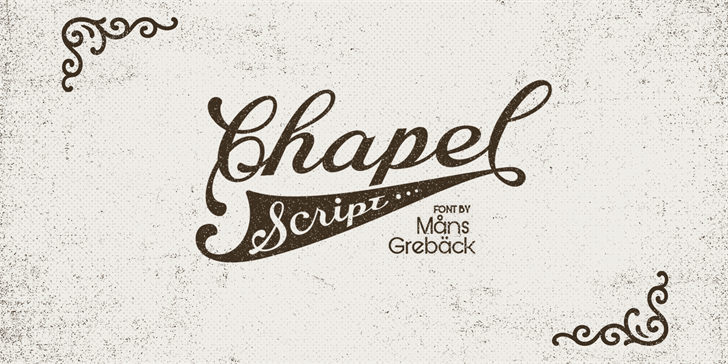
Free Chapel Script Font
Featuring the stunning free chapel script font. Go give some love to Font Space for creating this top-notch free typeface. Easily amaze your audience with this fancy font and make your graphic designs pop up from the crowd.